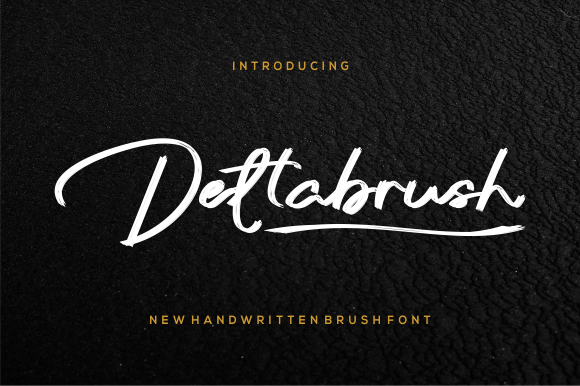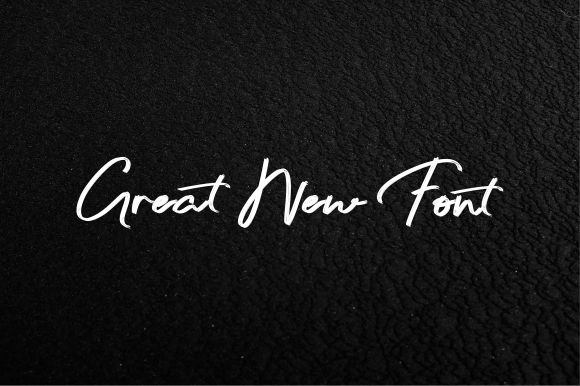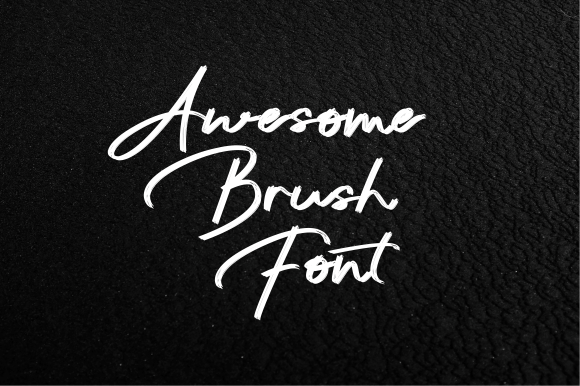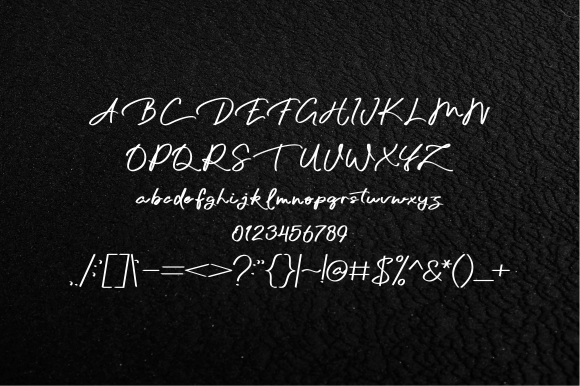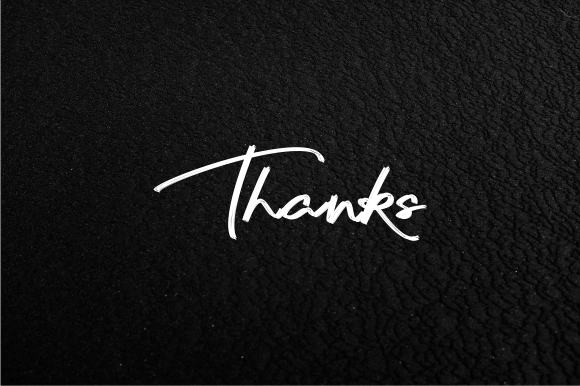
Deltabrush Font
A Captivating Handwritten Typeface
Deltabrush Font is a captivating and elegant handwritten script that adds a touch of sophistication and charm to your designs. With its distinct and timeless style, it’s the perfect choice for creating beautiful designs that leave a lasting impression. Whether you’re designing wedding invitations, logos, greeting cards, or branding materials, Deltabrush Font brings a refined, elegant touch to every project.
The Elegance of Deltabrush
The beauty of Deltabrush Font lies in its carefully crafted letterforms. The font’s graceful strokes and elegant design bring a sense of warmth and sophistication to your designs. Its fluid curves and delicate lines create a sense of fluidity and balance, making it an ideal choice for a wide range of projects.
Perfect for Wedding Invitations
For wedding invitations, Deltabrush Font adds a unique and personal element. Its handwritten style creates a sense of romance and elegance, perfect for setting the tone for a memorable celebration. Whether you’re designing formal or rustic wedding invitations, this font brings sophistication and beauty to your wedding stationery.
Ideal for Greeting Cards
For greeting cards, thank-you notes, or holiday greetings, Deltabrush Font creates a welcoming and charming atmosphere. The font’s playful and relaxed style makes it ideal for adding a touch of joy and elegance to your designs. Whether it’s a birthday card, thank-you note, or a holiday greeting, this font makes your message feel extra special and meaningful.
Great for Branding and Logos
Deltabrush Font is also perfect for creating logos and branding materials. Its elegant and memorable design helps create a strong brand identity. Whether you’re working on a luxury brand logo, business cards, or packaging, the font’s refined style elevates your brand, leaving a lasting impact. The timeless charm of Deltabrush makes it an excellent choice for branding.
Ideal for Typography and Social Media Graphics
For quotes and typography designs, Deltabrush Font adds a visual appeal that enhances your message. Whether you’re creating motivational quotes, social media graphics, or posters, the font’s unique style makes your words stand out with elegance and impact. Deltabrush Font helps you create memorable and engaging designs.
Versatile and Easy to Use
Despite its elegant design, Deltabrush Font is versatile and easy to use. Whether you’re working with headlines, captions, or body text, this font maintains a perfect balance between creativity and legibility. It’s suitable for both print and digital media, making it perfect for a wide range of design projects.
Let Deltabrush Inspire Your Creativity
In summary, Deltabrush Font is a neat and beautiful handwritten typeface that brings elegance and charm to your designs. With its distinct and timeless style, it’s perfect for a variety of projects, from wedding invitations to branding materials and typography designs. Deltabrush Font will add an extra layer of sophistication and beauty to your work, helping your designs stand out and leave a lasting impression on your audience.